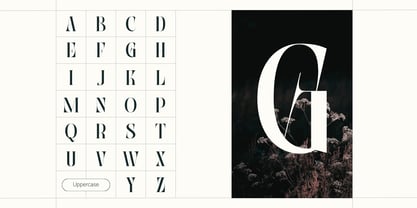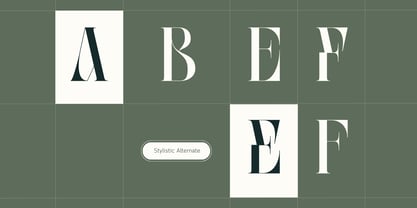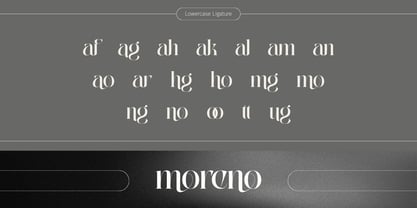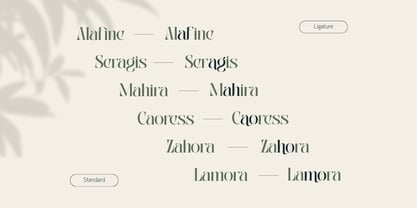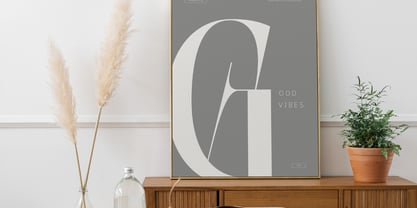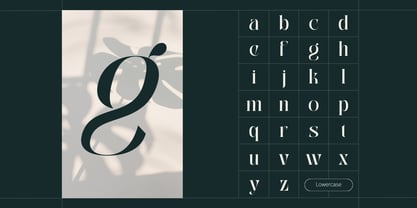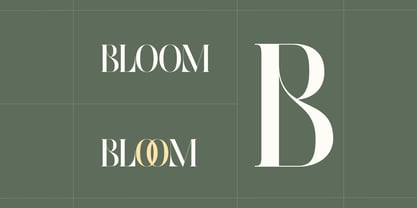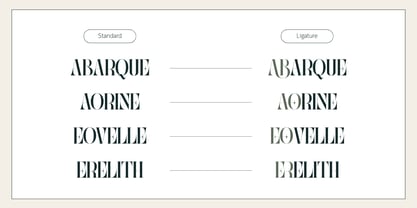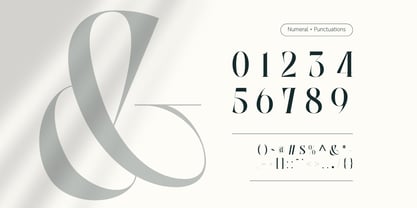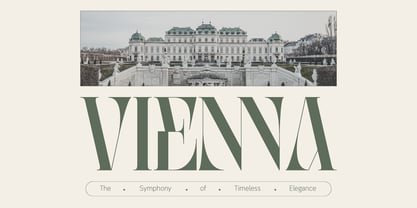
Abogia
by Nirmana Visual
The Abogia Font Family was designed by Sigit Dwipa and published by Nirmana Visual. Abogia contains 2 styles and family package options. More about this family
Abogia Font is a modern and stylish typeface crafted with elegance and versatility. Available in Regular and Italic, it offers a refined look perfect for branding, logo design, packaging, magazine titles, and more. With a wide range of ligatures and alternates, Abogia gives designers endless creative possibilities to craft unique typography. It’s sleek curves and balanced proportions bring sophistication, making it ideal for projects that demand a timeless yet contemporary feel.
Designers: Sigit Dwipa
Current Foundry: Nirmana Visual